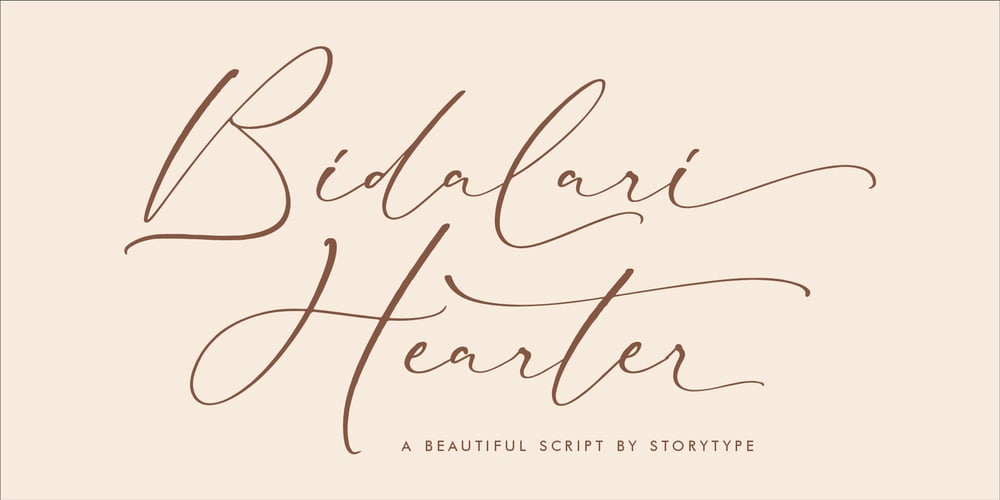
Bidalari Hearter Font Family was designed by Heru Utama Putra and published by Letterena Studios. Bidalari Hearter contains 2 styles and family package options. Bidalari Hearter is a beautiful and luxurious script that has its own unique style & modern look.This typeface is perfect for an elegant & luxury logo, book or movie title design, fashion brand, magazine, clothes, lettering, quotes, and so much more.